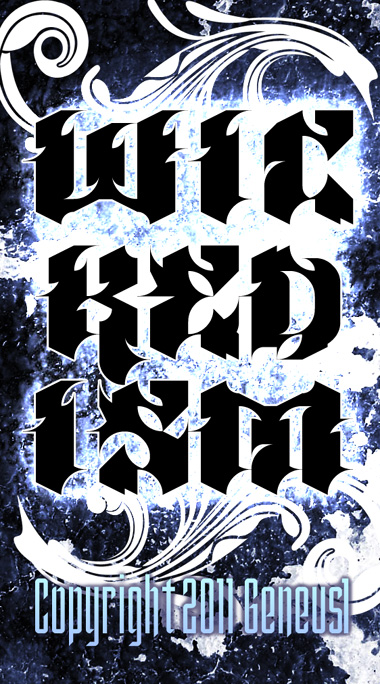
The evil older brother of
Ferno. Unleashed from his cage where he has been held captive for two years. wait. It says created 10.29.08. It's been about three years. Yep. He's angry about that. Long overdue for a Halloween rampage.
This is a FontStruct 1.0 creation. Original stacks were created with
Will's brick stacking glitch before Meek permanently made it an advanced feature. I was going to update it with new curvy bricks, but I'm afraid to touch it. It's wicked sharp.
I will make some specific observations (for the interest of illuminating feedback that has come your way before – but perhaps without such a stunning and concrete example).
To me, the gestalt of Wickedism communicates a highly animated, animalistic, and articulated quality: it is both chimeric and cinematic. Swooping contrast, taloned and beaked terminals, viciously squared jaws and claws, and this overriding sense of personification abound. The evoked personage gleams in the moonlight, a black-plumed knight in full battle regalia about to go berserk. Quite the beautifully realized head trip of a singular emotion – intimidation.
His choices of bricks – though many configurations are repeated explicitly through rotation and translation – create tightly integrated and coherent english characters with a gothic illustrative feel. It’s the brickstacked geometries that entail all these oculi (eye shapes), teeth, feathers, blades.
These qualities remind me very much of what you have attained within a single letter (I am reminded of Faun Call and all the mythic beasts you meticulously encoded into latin glyphs - especially the polygonal, checkered gryphon masterpiece). But, again, the comparison I draw is primarily a link of contrast. Similar artistic spirit, perhaps, but vastly different execution.
I said above the effect conjured here works best in the formation of words – interrelated figurative shapes harmonize within the constructs and constraints of english letters to create synesthesia. Type a word, and we begin to feel that shape-shifter stalking, pouncing, chattering arcane utterances amidst the tall, jet-black blades of elephant grass.
I think I can say it a bit more concisely: both Wickedism and much of your work evoke fantastical qualities. You populate whole kingdoms within an alphabet – so often revealing their multifarious faces within a single letter – whereas Geneus1 channels here the spirit of a single wicked warrior.
He asks the question, “How does it look when this berserker signs his name in blood?” or perhaps “What font could illustrate the onomatopoeic sound effect as he draws his vorpal blade from its mercurial sheathe?”
I think what is illuminated in "wickedism" is the graffiti strong background of Gene. The accent put on the movement, the tornado of the word, add some sharpness and you have a more "gothic" feel, but still linked to the graffiti world, not really to the so-called "goth" movement i think. Wickedism releases it with strength and elegance and forces admiration in how it perturbs and distorts what could have been boring modularity. This is for me the best part of Geneus One work, the most creative, cause i still can not see the point of coying Helvetica and its alike !